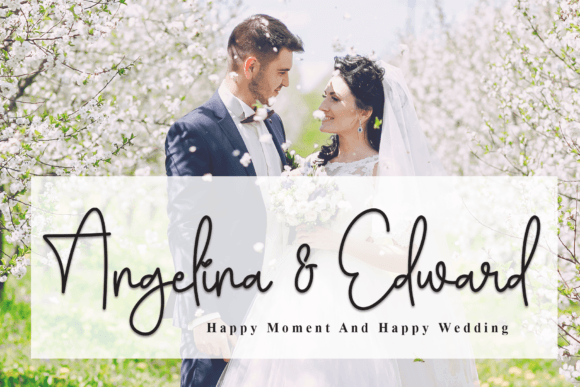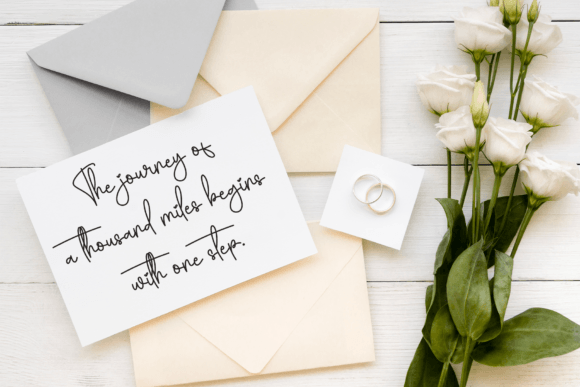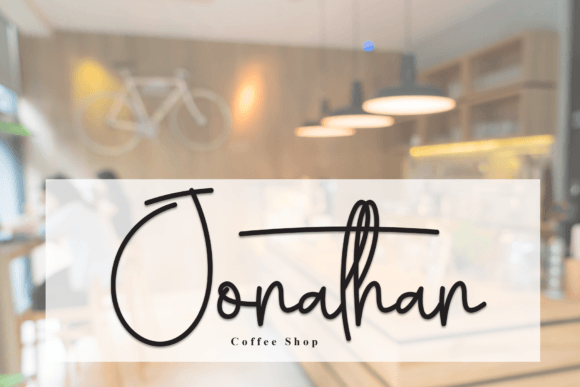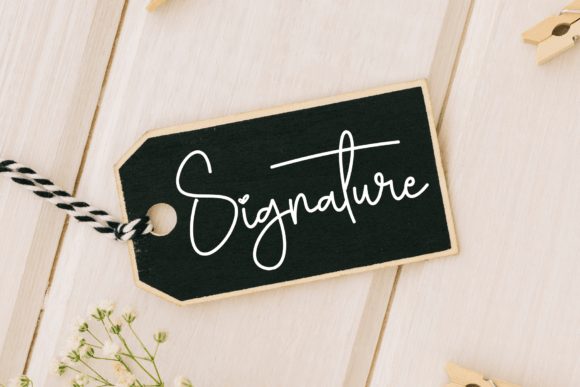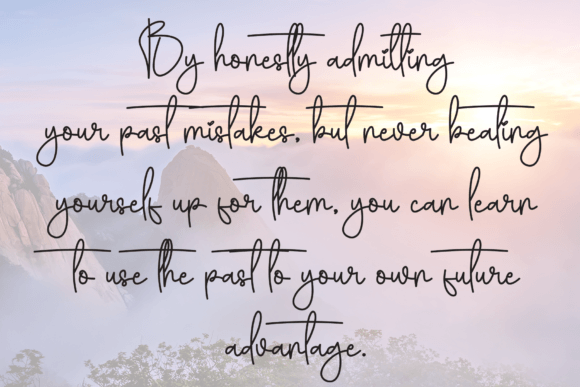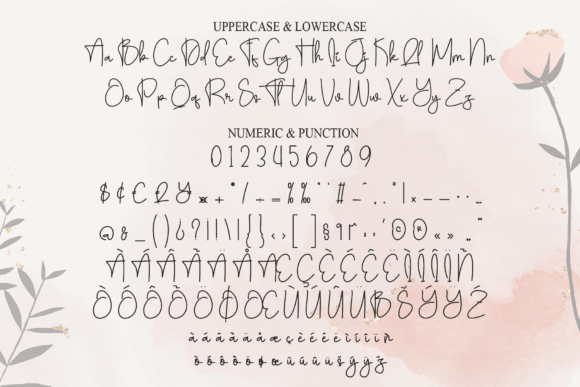
Introducing Blushing Saturday Font: Elevate Your Designs with Elegance
Are you on the hunt for a font that exudes elegance and sophistication? Look no further than the Blushing Saturday Font, a stunning handwritten font that is sure to capture your heart. With its unique blend of classic charm and modern flair, this font is perfect for designers and crafters looking to add a touch of refinement to their projects.
The Beauty of Blushing Saturday Font
Blushing Saturday Font is a neat and beautiful handwritten font that boasts an elegant touch, making it ideal for a wide range of applications. From wedding invitations and branding materials to social media graphics and digital art, this font is sure to impress. Its incredibly distinct and timeless style is sure to set your designs apart from the crowd, and its versatility makes it easy to use in a variety of contexts.
What Makes Blushing Saturday Font So Special?
So, what sets Blushing Saturday Font apart from other fonts on the market? Here are just a few reasons why designers and crafters are falling in love with this beautiful font:
- Elegant and Refined: Blushing Saturday Font features a sophisticated and elegant design that is perfect for high-end branding, wedding invitations, and other special occasions.
- Unique and Distinctive: With its own unique character and style, this font is sure to make your designs stand out from the crowd.
- Timeless Appeal: Unlike trendy fonts that quickly go out of style, Blushing Saturday Font has a timeless quality that ensures it will remain relevant for years to come.
- Versatile: Whether you’re designing a logo, creating social media graphics, or crafting digital art, Blushing Saturday Font is easy to use and adaptable to a wide range of applications.
How to Use Blushing Saturday Font in Your Designs
Ready to fall in love with Blushing Saturday Font? Here are a few tips for incorporating this beautiful font into your designs:
- Pair it with Bold Colors: Blushing Saturday Font looks stunning paired with bold, bright colors. Try combining it with a vibrant hue to create a striking contrast.
- Use it for Headlines: The elegant and refined design of Blushing Saturday Font makes it perfect for headlines and titles.
- Add Decorative Elements: Consider adding decorative elements, such as flowers or leaves, to enhance the beauty of your design.
- Experiment with Different Sizes: Blushing Saturday Font looks great in a variety of sizes, from large and bold to small and delicate.
Who Can Benefit from Blushing Saturday Font?
Blushing Saturday Font is perfect for a wide range of designers and crafters, including:
- Graphic Designers: Whether you’re creating branding materials, social media graphics, or digital art, Blushing Saturday Font is a great addition to your font library.
- Wedding Planners: This font is perfect for creating beautiful wedding invitations, programs, and other stationery.
- Crafters: If you enjoy crafting, scrapbooking, or making DIY projects, Blushing Saturday Font is a great choice for adding a touch of elegance to your creations.
In conclusion, Blushing Saturday Font is a beautiful and elegant handwritten font that is sure to capture your heart. With its unique blend of classic charm and modern flair, this font is perfect for designers and crafters looking to add a touch of refinement to their projects. Whether you’re creating branding materials, wedding invitations, or digital art, Blushing Saturday Font is a great choice for elevating your designs and making them truly special.